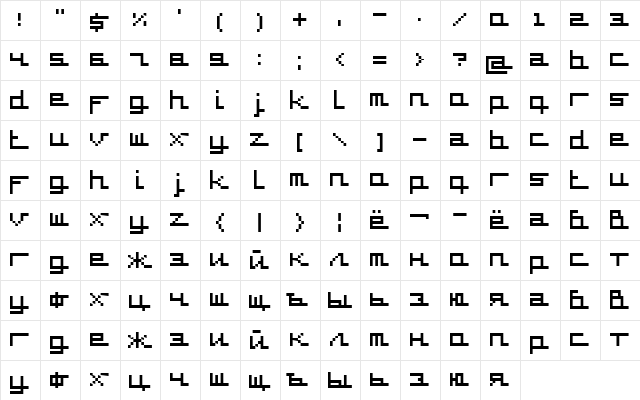
supercar cyr Regular
| Designer | Magnus H?gberg - eng. & Nikolay Dubina - cyr. |
Design Context for supercar cyr Typeface
supercar cyr is a composed and adaptable typeface that performs quietly and consistently across a wide range of design contexts.